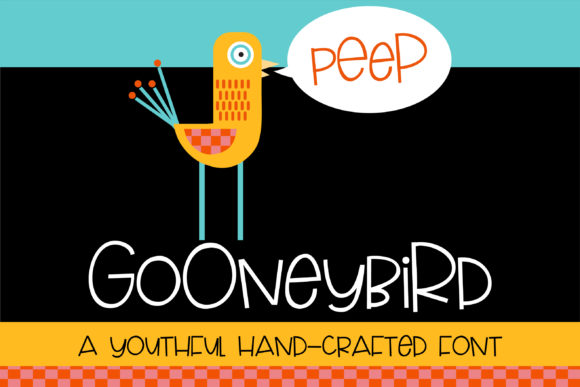
Introducing Gooneybird Font - Your Gateway to Whimsical Design Adventures!
Prepare to embark on a captivating typographic journey with Gooneybird Font, the ultimate sans serif font infused with a dash of playful charm. Step into a world where letters dance with a mischievous grin, inviting you to unleash your creativity and transform your designs into captivating masterpieces.
Gooneybird Font isn't just a font; it's an expression of individuality, a celebration of the unconventional, and an ode to the joy of visual storytelling. Its quirky characters, reminiscent of mischievous sprites, add a touch of whimsy to everything they grace, injecting life and personality into your designs.
With Gooneybird Font, you'll find endless opportunities to weave your creative magic. Whether you're crafting eye-catching logos, designing playful posters, or adding a touch of lightheartedness to your social media graphics, this font will effortlessly elevate your projects to new heights of originality.
Gooneybird Font's versatility is truly remarkable. Its playful nature lends itself perfectly to children's books, invitations, greeting cards, and packaging, bringing a smile to the faces of all who encounter it. But don't let its whimsical charm fool you; this font also possesses a sophisticated edge, making it an excellent choice for branding, web design, and editorial projects.